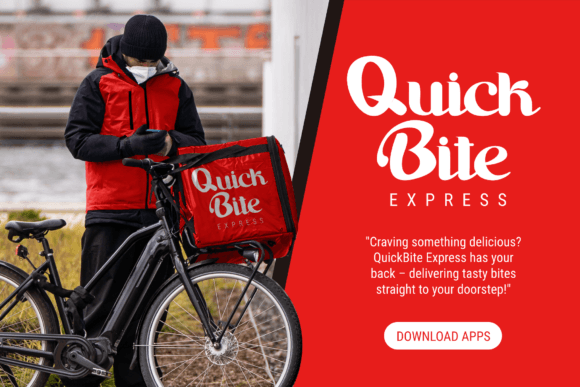
Introducing Ekspresa Font: The Ultimate Display Handwritten Font for Your Brand
In the world of typography, fonts play a crucial role in shaping the identity of a brand. A well-designed font can elevate your brand’s visual appeal, convey its personality, and leave a lasting impression on your audience. If you’re looking for a font that can add a touch of trendiness and sophistication to your brand, look no further than Ekspresa Font. In this article, we’ll explore the features and benefits of Ekspresa Font, and why it’s the perfect choice for your brand, logo, company, business, mobile application, consumer product, commercial, advertisement, and more.
What is Ekspresa Font?
βEkspresaβ is a display handwritten font that is specifically designed for use in branding, logos, companies, businesses, mobile applications, consumer products, commercials, advertisements, and more. This font is perfect for designers who want to add a personal touch to their designs and make them stand out from the crowd. With its unique and stylish handwritten texture, Ekspresa Font is sure to grab attention and leave a lasting impression.
Key Features of Ekspresa Font
Ekspresa Font comes with a range of features that make it an ideal choice for designers. Some of its key features include:
- PUA Encoding: Ekspresa Font is PUA encoded, which means you can access all of the glyphs with ease. This makes it easy to use and customize the font to suit your needs.
- Display Handwritten Style: Ekspresa Font features a beautiful display handwritten style that is perfect for use in headlines, titles, and other display text.
- Trendiness: This font has the perfect amount of trendiness, making it ideal for designers who want to create modern and stylish designs.
- Versatility: Ekspresa Font can be used for a wide range of applications, including branding, logos, companies, businesses, mobile applications, consumer products, commercials, advertisements, and more.
Benefits of Using Ekspresa Font
There are many benefits to using Ekspresa Font in your designs. Some of the key benefits include:
- Unique and Stylish Designs: Ekspresa Font allows you to create unique and stylish designs that will stand out from the crowd.
- Easy to Use: This font is easy to use and customize, making it perfect for designers of all skill levels.
- Time-Saving: With Ekspresa Font, you can save time and effort in creating custom designs from scratch.
- Cost-Effective: This font is a cost-effective solution for designers who want to create high-quality designs without breaking the bank.
Tips and Tricks for Using Ekspresa Font
Here are some tips and tricks for using Ekspresa Font:
- Experiment with Different Sizes and Colors: Experiment with different sizes and colors to find the perfect combination for your design.
- Use it for Headlines and Titles: Use Ekspresa Font for headlines and titles to add a touch of elegance and sophistication.
- Pair it with Other Fonts: Pair Ekspresa Font with other fonts to create a unique and stylish design.
In conclusion, Ekspresa Font is a versatile and stylish display handwritten font that is perfect for designers who want to add a touch of trendiness and sophistication to their designs. With its unique features, benefits, and ease of use, Ekspresa Font is an ideal choice for a wide range of applications. Whether you’re a designer, business owner, or entrepreneur, Ekspresa Font is a great addition to your font library.
- What is Ekspresa Font?: Ekspresa Font is a display handwritten font specialized for brand, logo, company, business, mobile application, consumer product, commercial, advertisement, and more.
- What is PUA encoding?: PUA encoding is a method of encoding fonts that allows designers to access all of the glyphs with ease.